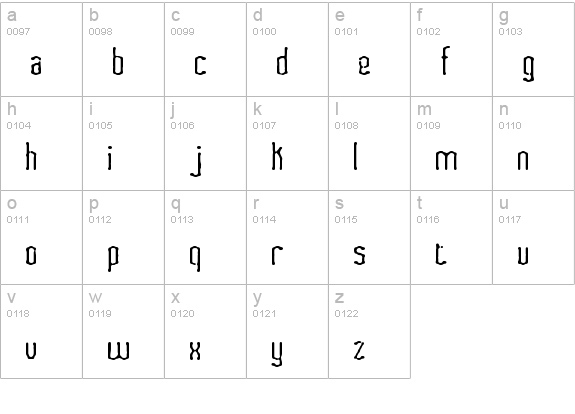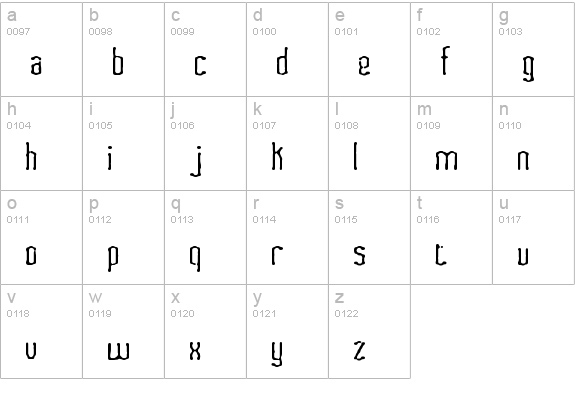
Fascii Smudge BRK Font Details
Fascii Smudge BRK font is a unique and eye-catching typeface that exudes a playful and artistic vibe. Its irregular smudged appearance adds a touch of creativity and character to any design project. The font features a mix of uppercase and lowercase letters, numbers, and special characters, making it versatile for various uses. What makes Fascii Smudge BRK font even more appealing is that it is available for free download at FontsMarket.com. This means that you can easily access this charming font to enhance your creative projects without any cost. Whether you are designing posters, invitations, logos, or any other graphic materials, Fascii Smudge BRK font is sure to make a bold statement and leave a lasting impression. Download it today and elevate your designs with this captivating and freely available typeface.